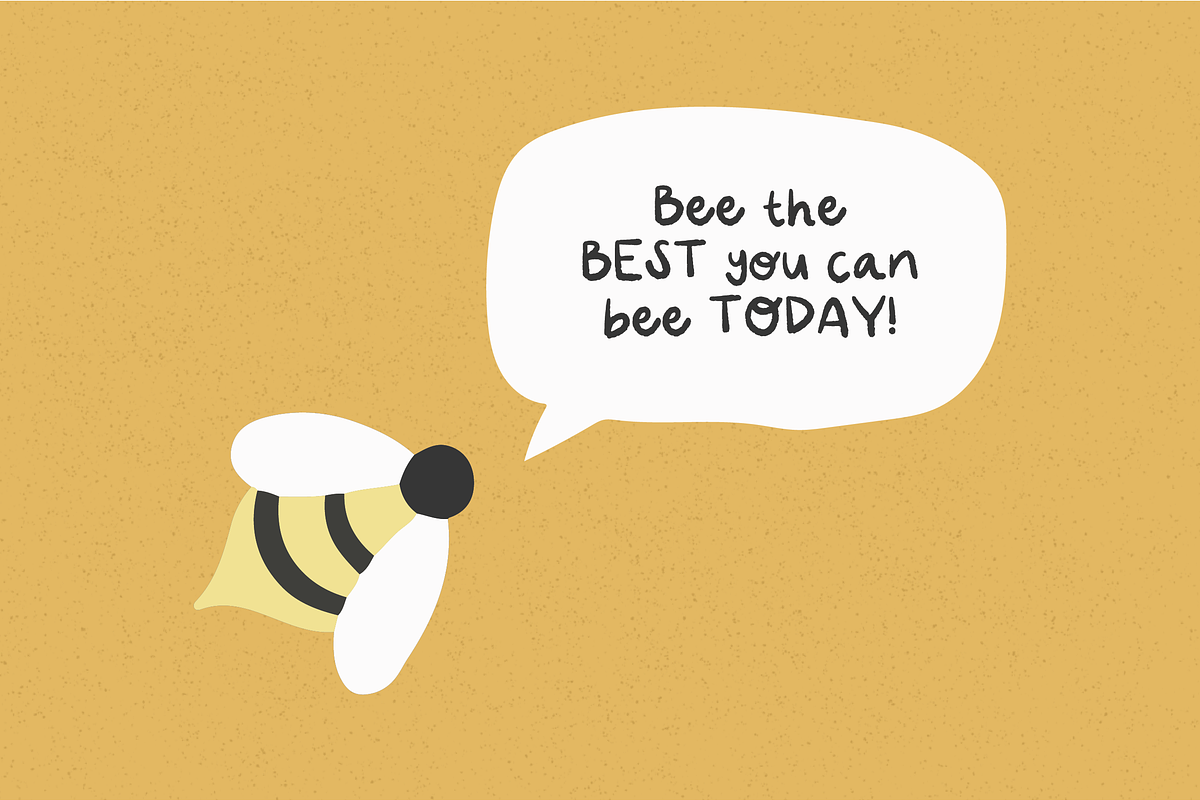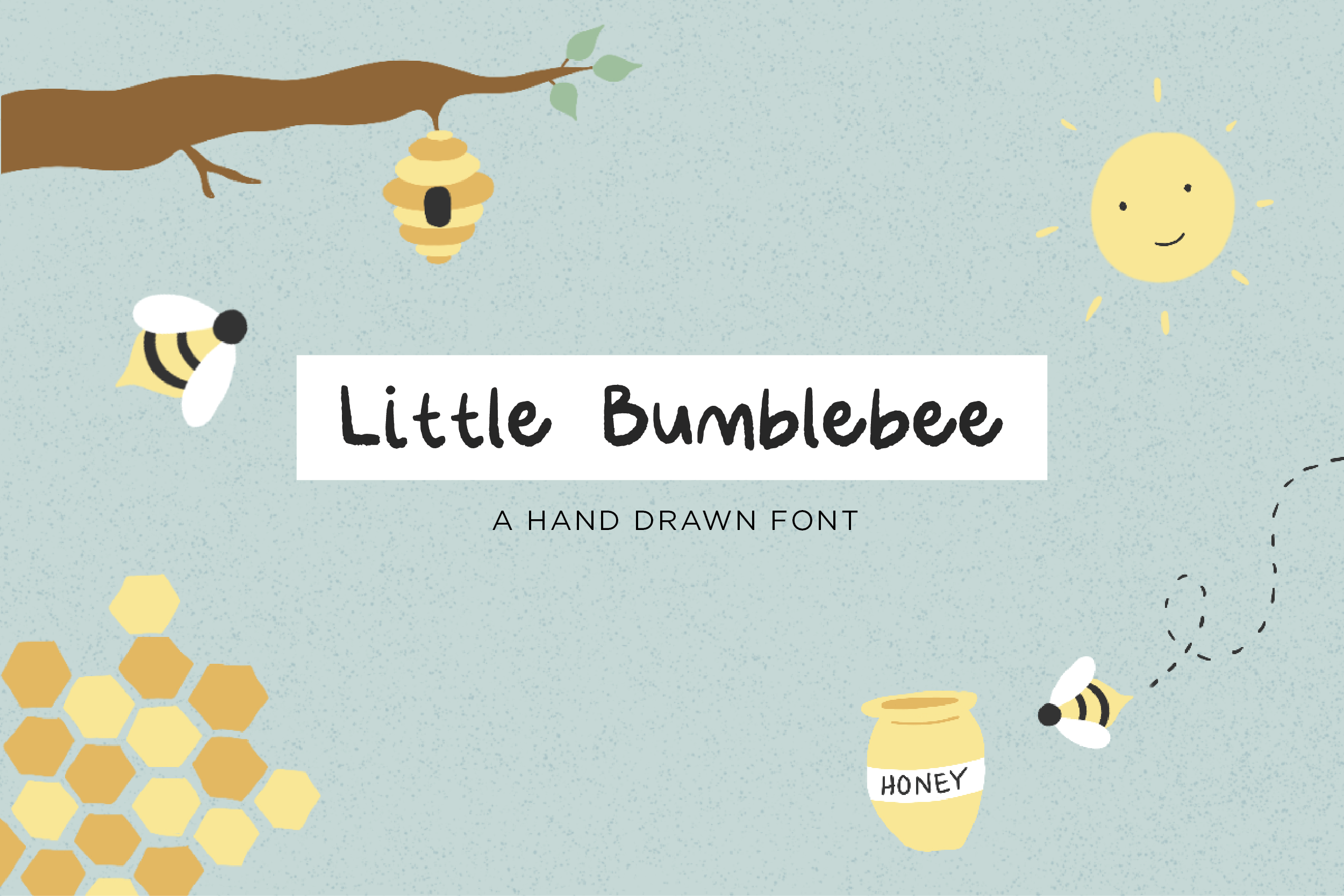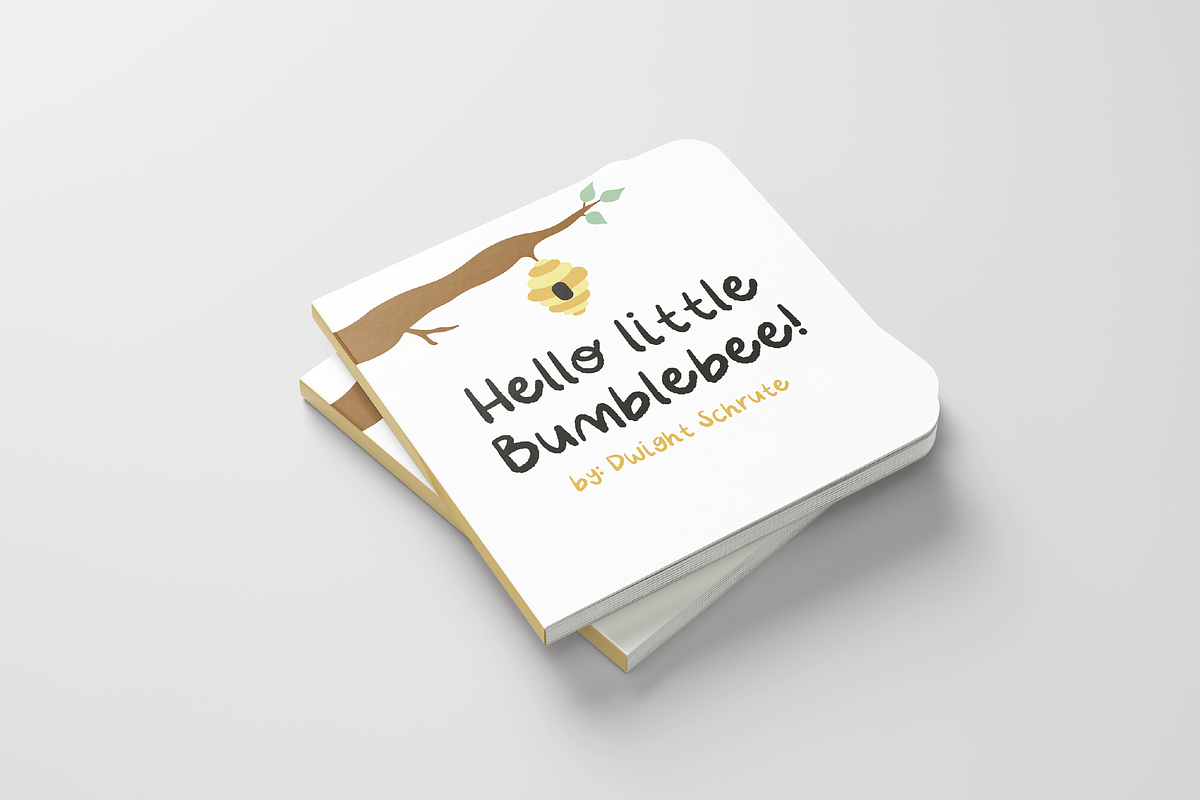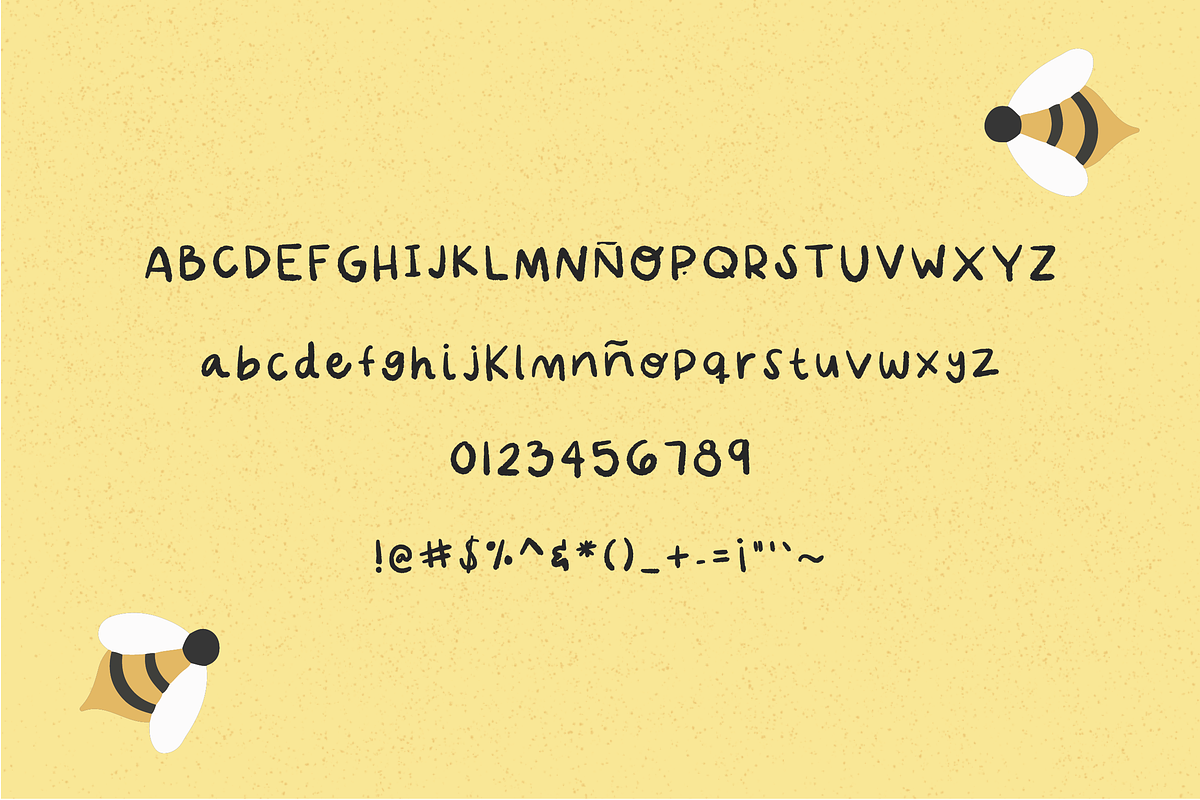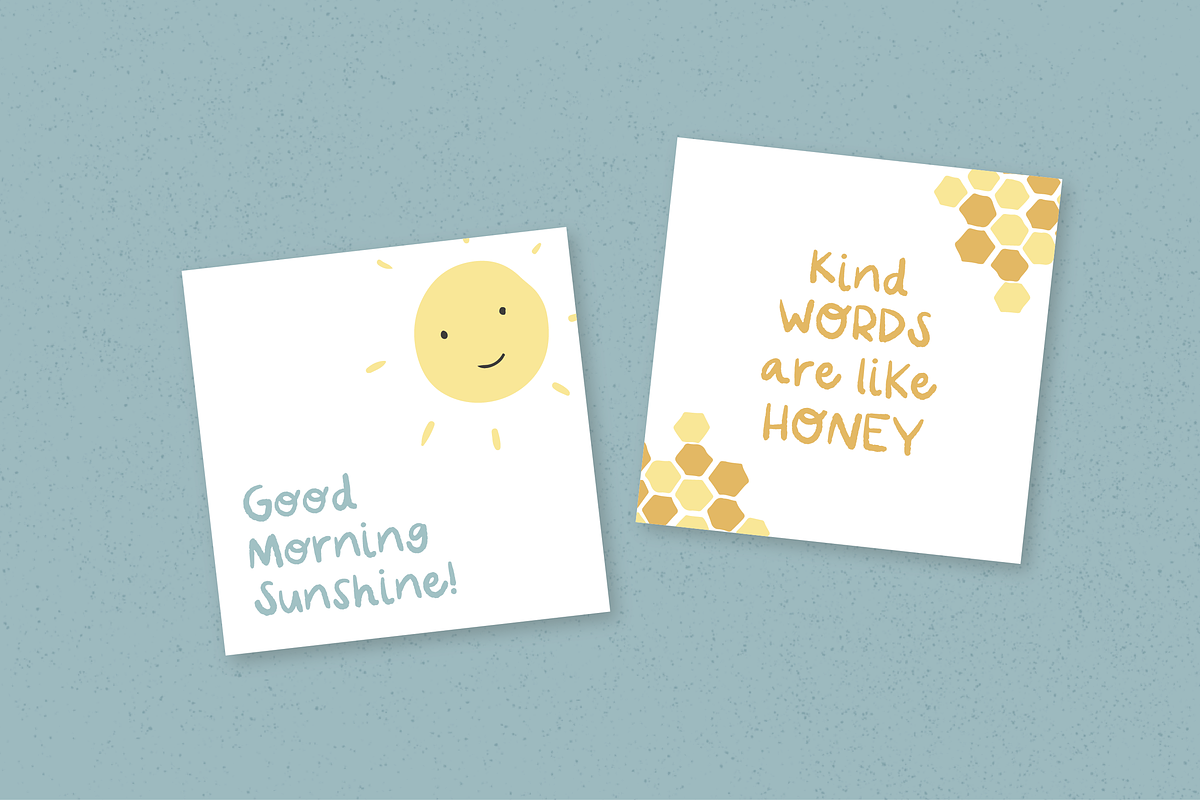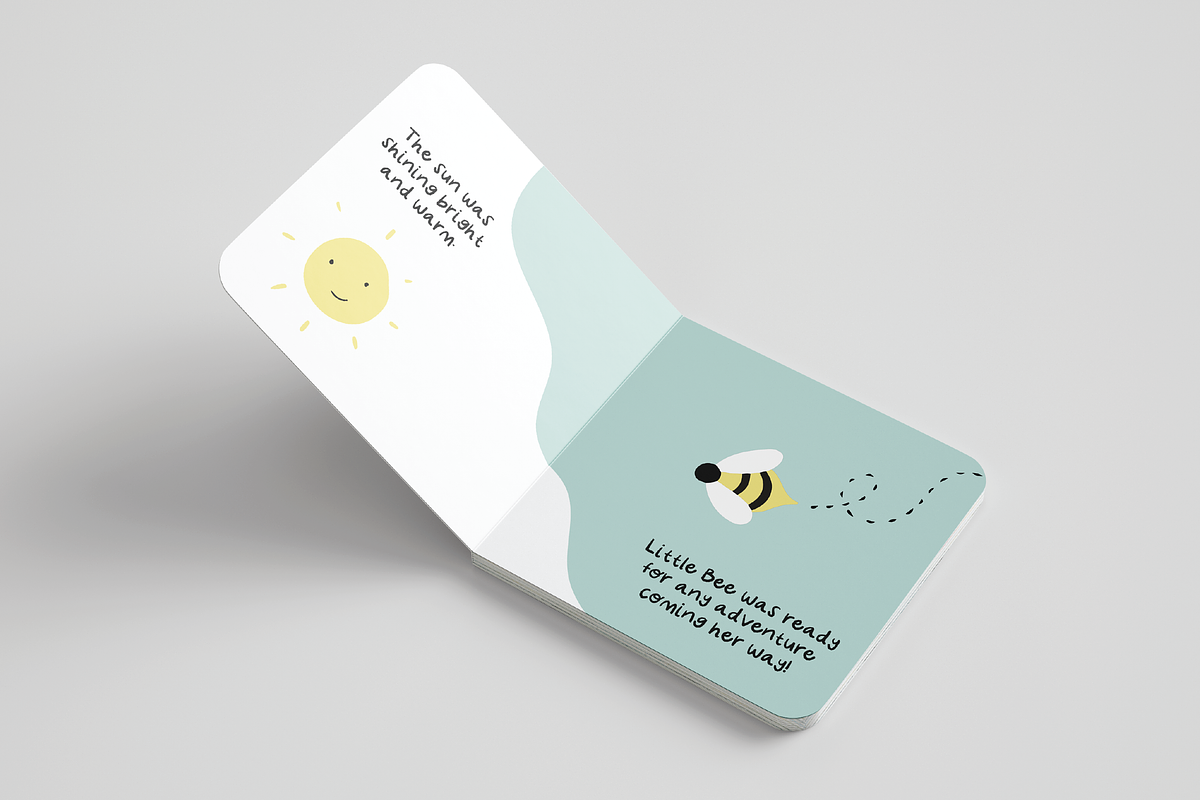
Little Bumblebee Hand Drawn Font
LITTLE BUMBLEBEE - Super cute hand-drawn font perfect for childrens books, birthday cards, instagram post or anything cute!
- Numbers and Punctuation
- Supports English and Spanish characters.